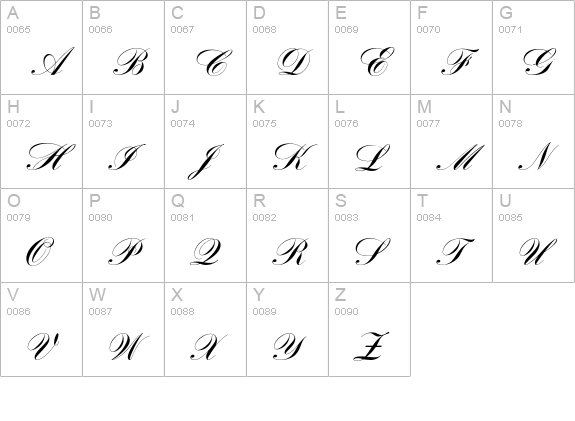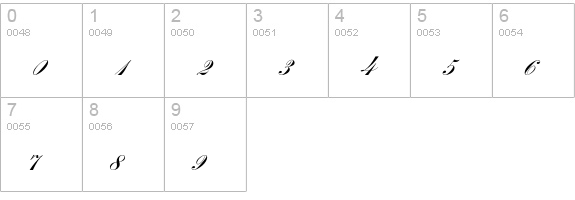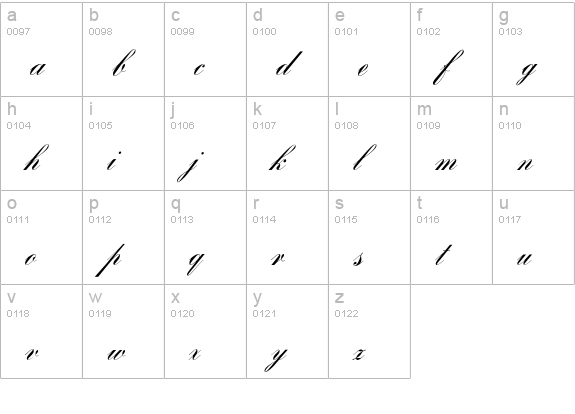
Bank Script Joining D Font Details
Introducing Bank Script Joining D font, a stunning typeface that exudes elegance and sophistication. This font is perfect for adding a touch of luxury to your designs, whether you're working on invitations, branding, or any other project that requires a touch of class. Bank Script Joining D font features delicate script letterforms that flow beautifully across the page, creating a sense of movement and grace. The joining D adds a unique and eye-catching element to your text, making it stand out from the crowd. What's even better is that this font is completely free to download at FontsMarket.com. Yes, you read that right - you can get your hands on this exquisite typeface without spending a dime. So why wait? Elevate your designs with Bank Script Joining D font today and bring a touch of sophistication to your projects.